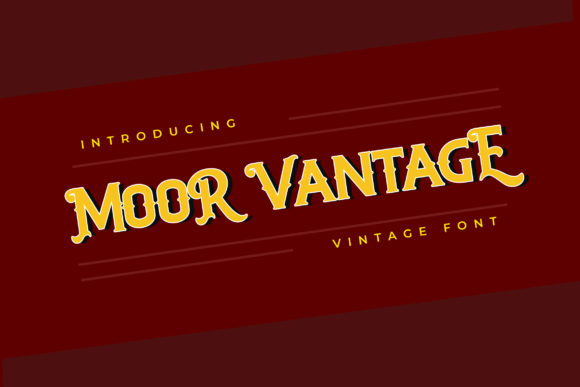
Behold Moor Vantage, the quintessential display font, a creation of uicreativenet, the font foundry renowned for its artistic prowess. With Moor Vantage, you'll embark on a nostalgic journey back to the golden era of retro logos. This font exudes a timeless charm and a touch of vintage elegance that will make your designs pop with character and distinction.
Moor Vantage is more than just a font; it's a gateway to a world of retro aesthetics and visual allure. Its bold and commanding strokes evoke feelings of nostalgia and a sense of heritage, making it the perfect choice for logos, branding, and any design that seeks to capture the essence of the past.
Unleash your creativity and let Moor Vantage be your artistic compass. Its versatility shines in a myriad of applications. Craft logos that exude a timeless appeal, design posters that transport viewers to another era, or create social media graphics that ooze vintage charm. The possibilities are endless, and with Moor Vantage at your disposal, your designs will radiate an aura of authenticity and sophistication.